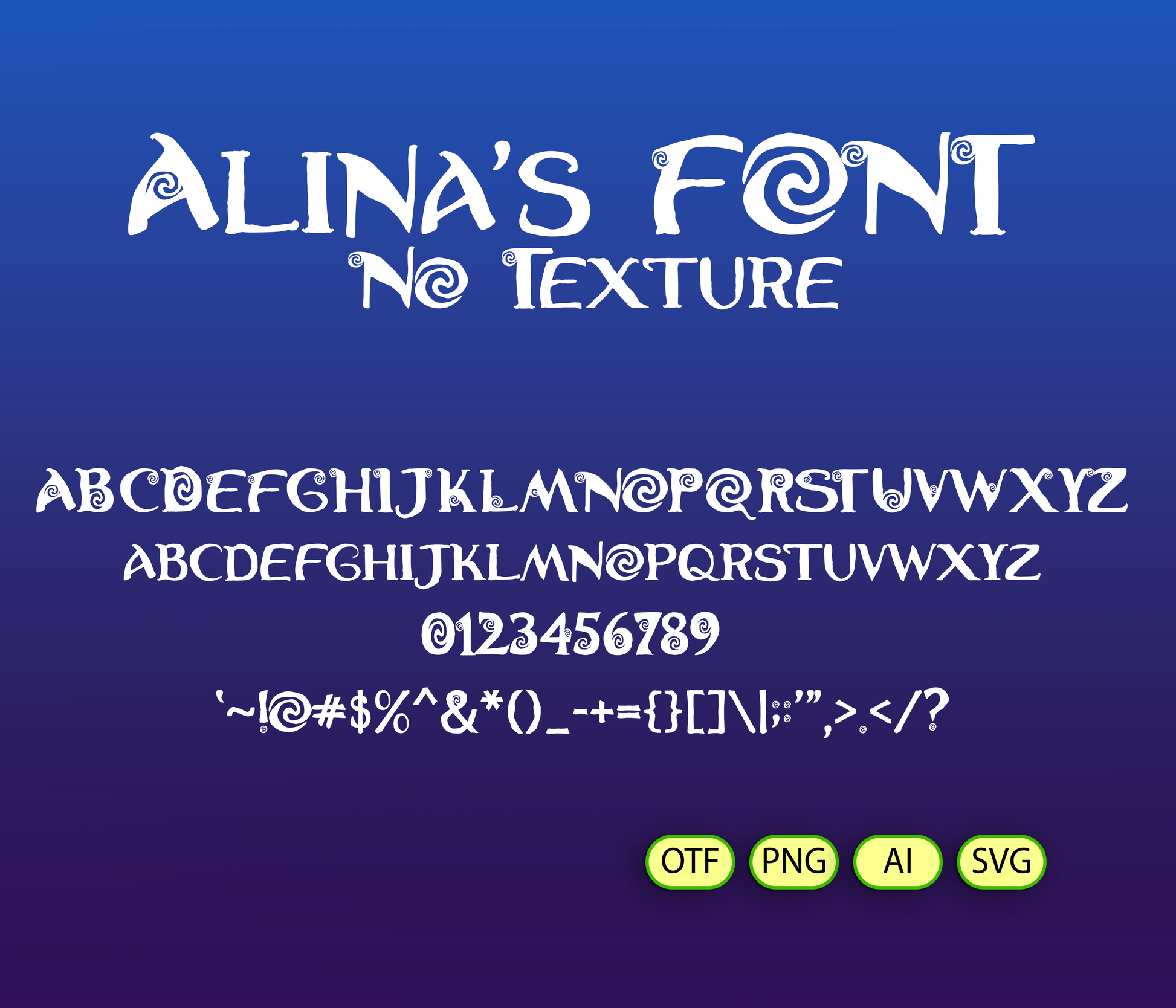
Polynesian Ocean Princess Returns Font
Step into the magical world of island adventures with our specially designed font that captures the essence of tropical legends and seafaring journeys. This font embodies the spirit of a beloved voyager princess, known for her connection to the ocean and heart-warming heroic tales. Perfect for creators, event organizers, and designers who want to bring the dynamic energy of Pacific Island mythology to their projects.
Our Ocean Princess Returns font features flowing, wave-like lines and tropical characters reflecting the adventurous nature of island exploration. Ideal for:
1. Event Promotions: Create enchanting invites, posters, and banners for luaus, beach parties, and special screenings that capture the spirit of Polynesian adventure.
2. Merchandise Design: Design T-shirts, posters, and accessories that embody the magic and wonder of oceanic voyages.
3. Digital Media: Transform websites, blogs, and social media with dynamic headers and graphics that evoke tropical paradise vibes.
4. Fan Art Content: Add authentic flair to artistic creations, digital illustrations, and themed projects celebrating island culture.
5. Personal Projects: Bring island magic to scrapbooking, DIY crafts, and home decor inspired by Pacific adventures.
Our font pays tribute to legendary Polynesian tales, empowering your designs with its adventurous and magical spirit. Whether crafting promotional materials, designing merchandise, or adding a dynamic touch to personal projects, this font communicates the enchanting essence of oceanic exploration.